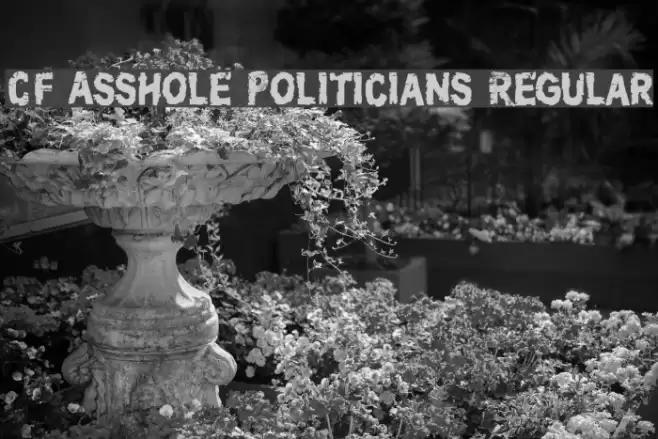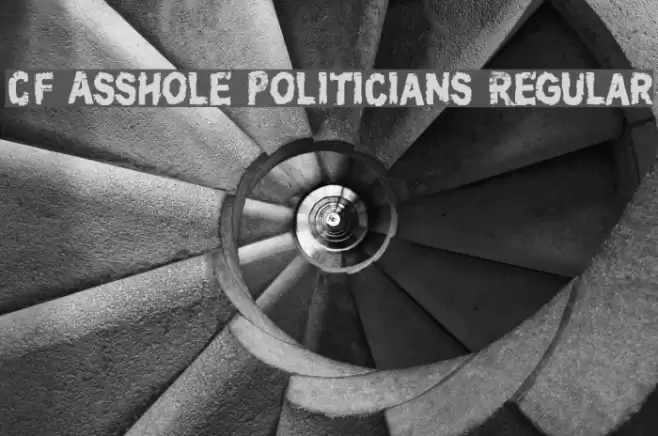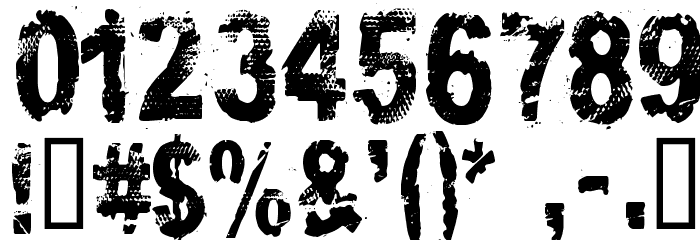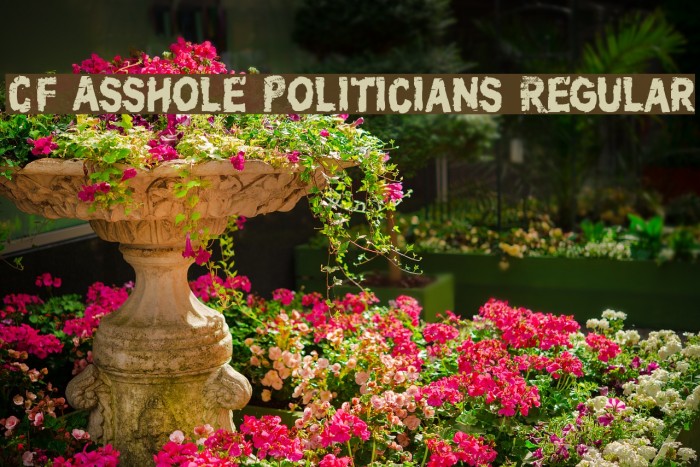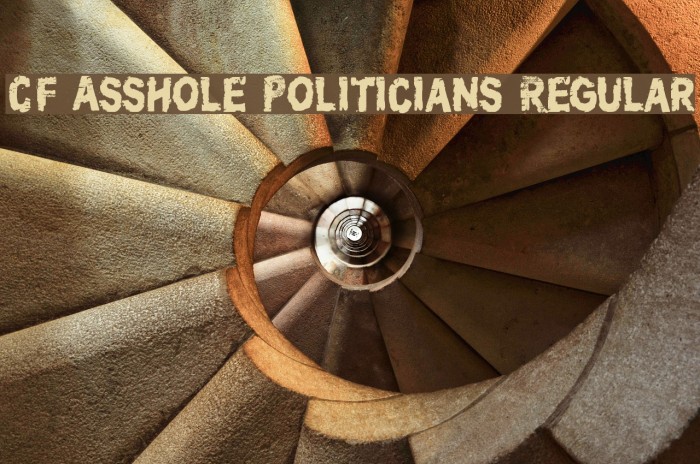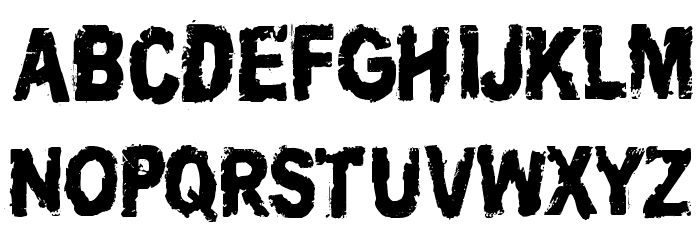
CF Asshole Politicians Regular Font
CF Asshole Politicians Regular Description
This font features a bold, distressed style with a grunge texture that gives it a rugged and edgy appearance. The characters are heavily textured, with irregular edges and a worn-out look, creating a sense of chaos and rebellion. The uppercase and lowercase letters maintain a consistent style, with numbers and special characters following the same distressed pattern. This font is ideal for projects that require a raw, impactful aesthetic, such as posters, album covers, or any design that aims to convey a sense of urgency or defiance.
A bold, distressed font with a grunge texture and rugged appearance from Fancy fonts.
- Proposed Projects: Ideal for posters, album covers, rebellious branding, or any design needing a raw, impactful aesthetic.
- Overall Style: Grunge, Edgy